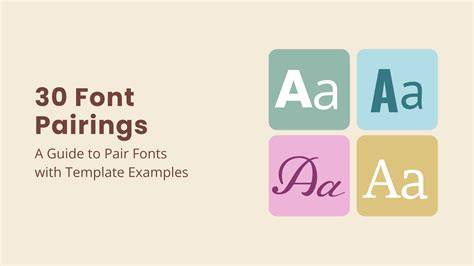
Pairing Fonts: Tips And Tricks For 2023
What Are Fonts?
Fonts are characters and symbols that are used to give written text a more interesting and varied appearance. Fonts can be used to create a variety of different looks, from a corporate look to a creative, whimsical look. In addition to changing the appearance of text, fonts can also be used to convey a message or mood. Fonts come in a variety of styles, ranging from simple serifs to elaborate script fonts. Fonts can be used for both print and digital media, such as websites and emails.
Why Should I Care About Fonts?
When used correctly, font pairing can help to create a consistent and professional look. It is important to choose the right font combination to ensure that your message is conveyed accurately. Font pairing can also be used to create an artistic or unique look. By combining fonts, you can create a look that stands out from the crowd. Using font pairing can help to add visual interest to your design and can help to create a sense of harmony.
How Do I Pick The Right Fonts?
When choosing fonts, it is important to consider the overall look and feel of your project. Think about the message or mood that you want to convey and choose fonts that reflect this. Consider the style of the project, as well as the audience. For example, a playful font might be appropriate for a children’s book, whereas a more formal font might be better for a corporate website. It is also important to consider the legibility of the font. If a font is too difficult to read, it can detract from the overall message.
Tips For Picking The Right Fonts
When pairing fonts, it is important to consider contrast. Combining fonts with different weights and styles can create contrast and visual interest. For example, pairing a bold font with a light font can help to make text stand out. Another way to create contrast is to choose fonts with different shapes. Combining a script font with a more structured font can help to create a unique look. It is also important to consider the size of the fonts. Choosing fonts with similar sizes can help to create a harmonious look.
Choosing the right fonts for your project is an important part of creating a successful design. Font pairing can be used to create a consistent and professional look, as well as to add visual interest. Consider the message or mood you want to convey and choose fonts that reflect this. Think about contrast and choose fonts with different weights, styles, and sizes. With a little planning and research, you can create a font pairing that will help your project stand out from the crowd.